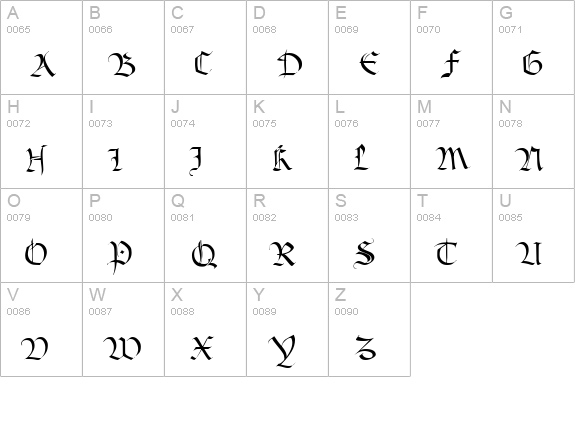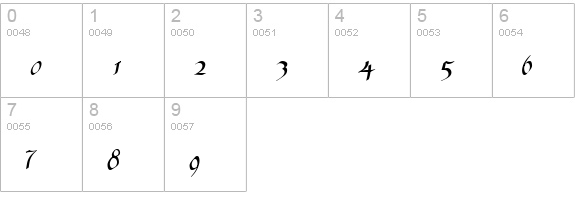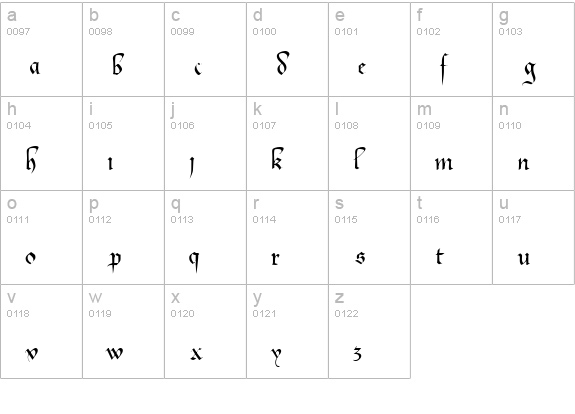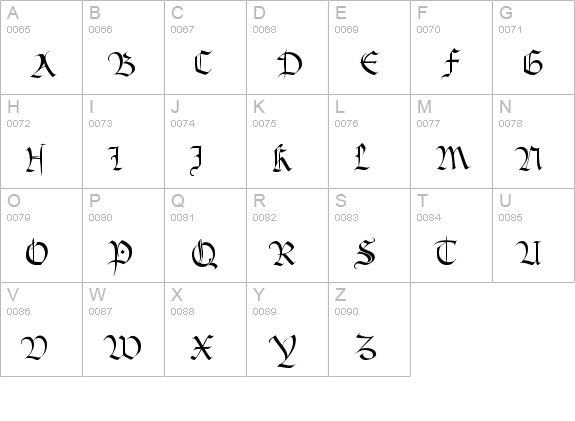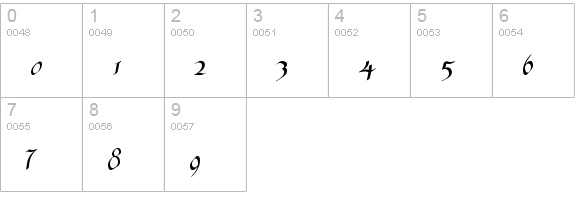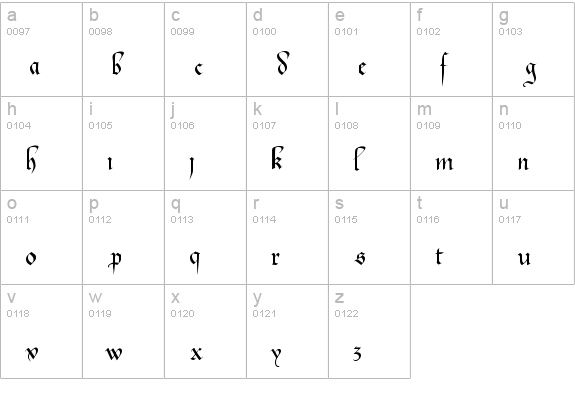
Pompadour Font Details
Introducing Pompadour font - a stylish and elegant typeface that is sure to catch the eye of any designer or typographer. With its unique blend of classic and modern elements, Pompadour exudes sophistication and charm. The clean lines and graceful curves of this font make it perfect for a wide range of design projects, from branding to editorial layouts. But the best part? Pompadour is available for free download at FontsMarket.com! That's right, you can get your hands on this stunning font without spending a dime. Whether you're working on a personal project or a client commission, Pompadour is sure to elevate your designs and make a lasting impression. So why wait? Head over to FontsMarket.com today and add Pompadour to your font collection!